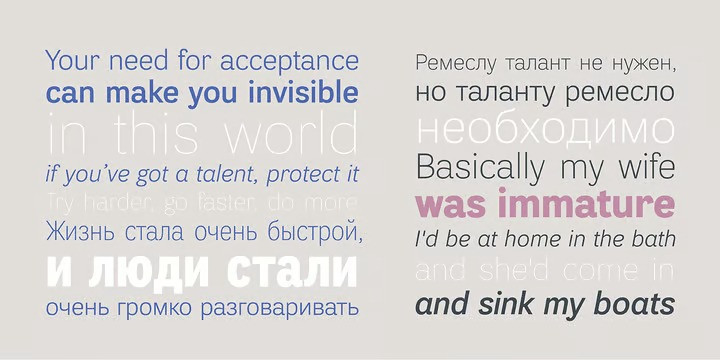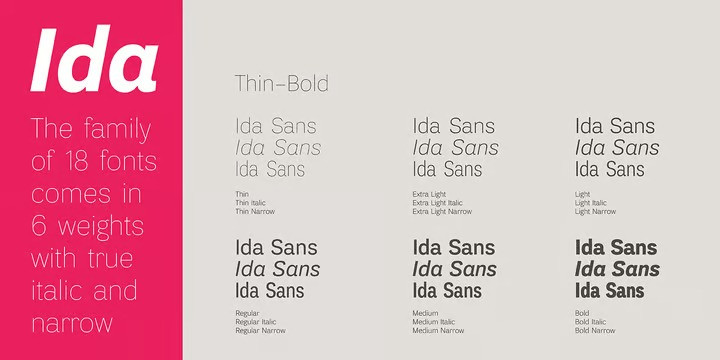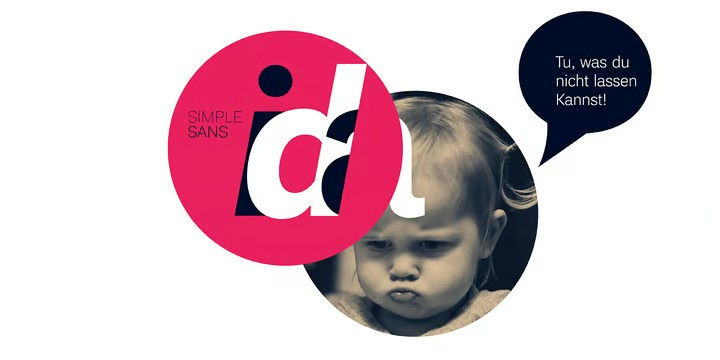
Ida Font
Ida Font is a simple and utilitarian typeface reminiscent of late 19th/early 20th Century grotesques, yet having a warm and friendly nature. Closed apertures and low contrast combined with elegant skeleton of individual characters create an impression of both rationality and comfort. Technically the font is modern and functional but still calls forth the emotion of a valve radio. Ida comes in 18 styles – 6 roman weights with companion italics and 6 narrow widths. One can also benefit from the use of small caps, alternate characters and indices. The typeface was designed by Maria Kharlamova (Selezeneva) and released by ParaType in 2017.